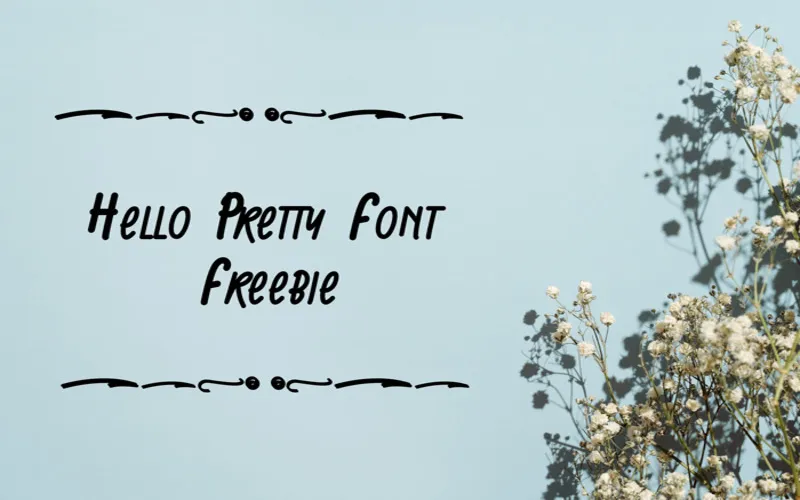
Add a touch of elegance and playfulness to your designs with Hello Pretty — a stunning, versatile script font that elevates branding, invitations, stationery, and more.
Features
• Elegant, playful handwritten style
• Modern and versatile aesthetic
• Smooth curves and stylish glyph set
• Font type: Script / Handwritten
Preview